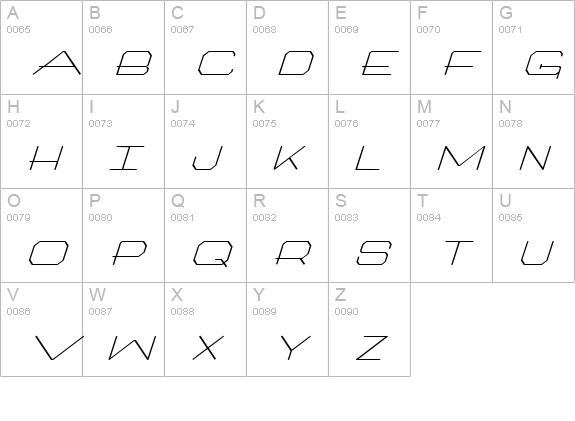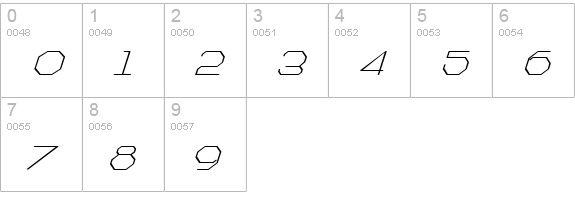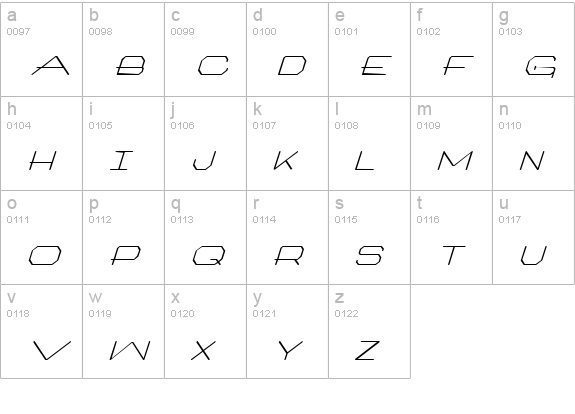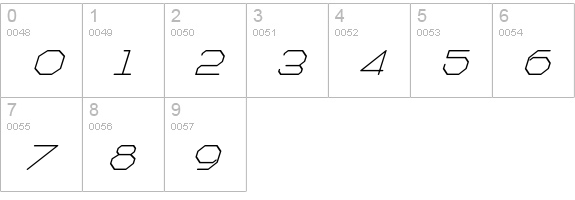
ArtlookIT Italic Font Details
ArtlookIT Italic is a distinctive, italic variant in the ArtlookIT typeface family \xE2\x80\x94 well suited to design and typography projects.
ArtlookIT Italic font is a stylish and elegant typeface that exudes sophistication and charm. With its sleek and modern design, this font is perfect for adding a touch of class to any project. The italic style of ArtlookIT brings a sense of movement and dynamism to your text, making it stand out and capture attention. One of the best things about ArtlookIT Italic font is that it is completely free to download. You can easily access this beautiful font at FontsMarket.com and enhance your designs with its unique flair. Whether you're working on a website, branding materials, or print projects, ArtlookIT Italic font is sure to elevate your work to the next level. Download ArtlookIT Italic font today and let its sophisticated charm transform your designs into works of art.